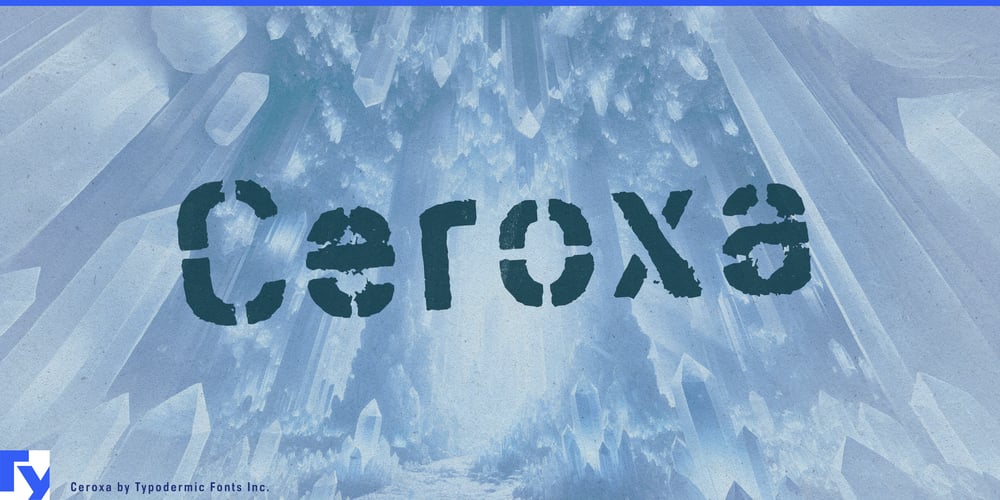
Ceroxa Font Family was designed by Ray Larabie and published by Typodermic. Ceroxa contains 1 styles and family package options. Ceroxa erupts onto the design scene, a stencil typeface that embodies the raw, unfiltered spirit of street art. This isn’t just another font—it’s a visual revolt, a typographic manifesto against the mundane. Each character in Ceroxa is born from the spray can, capturing the defiant essence of urban stenciling that gives voice to city walls worldwide.This typeface doesn’t merely communicate; it proclaims. Ceroxa’s bold, aggressive strokes command attention, making it the perfect choice for designers who refuse to whisper when they can shout. In OpenType-aware programs, Ceroxa truly comes alive, showcasing bespoke letter pairings that elevate your message from mere words to a visceral experience. The result? A typeface that doesn’t just sit on the page—it leaps off it, leaving an indelible mark on your audience’s psyche.Ceroxa’s rebellion speaks the universal language of the streets, supporting a vast array of Latin-based writing systems. From the gritty backstreets of New York to the vibrant laneways of Buenos Aires, Ceroxa’s voice rings clear and strong. It effortlessly adapts to most Latin-based European languages, ensuring your message retains its edge whether you’re crafting a hardcore band logo or designing a hard-hitting advertising campaign.In a world of polished perfection, Ceroxa stands as a beacon for those who dare to embrace the beautifully imperfect. It’s more than a typeface—it’s a call to arms for creatives who refuse to be silenced, who choose to leave their mark on the world, one bold character at a time. So go ahead, let Ceroxa be your typographic spray can. Watch as your words transform into a force of nature, demanding to be seen, heard, and felt. With Ceroxa, your message isn’t just delivered—it’s unleashed, raw and unapologetic, ready to make its mark on the urban landscape of design.